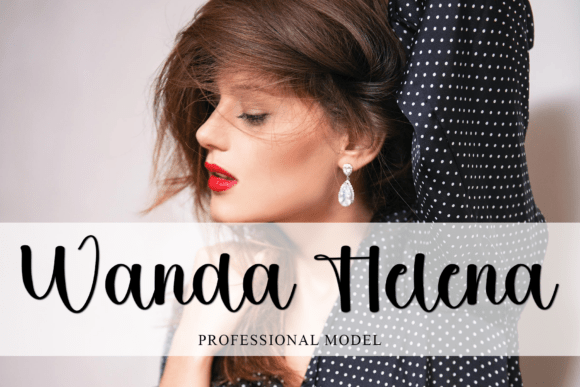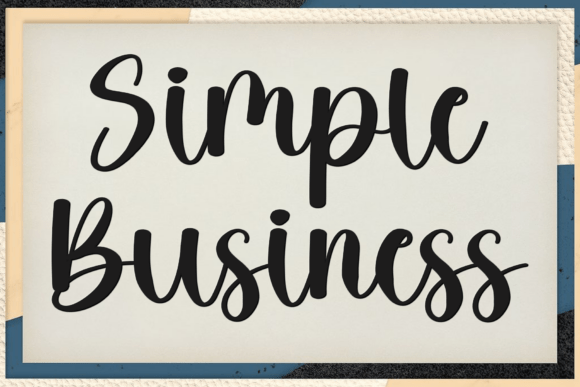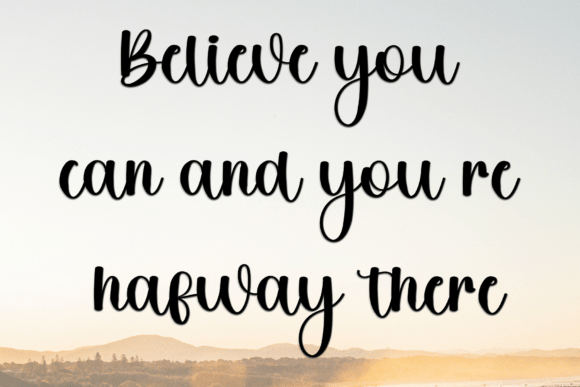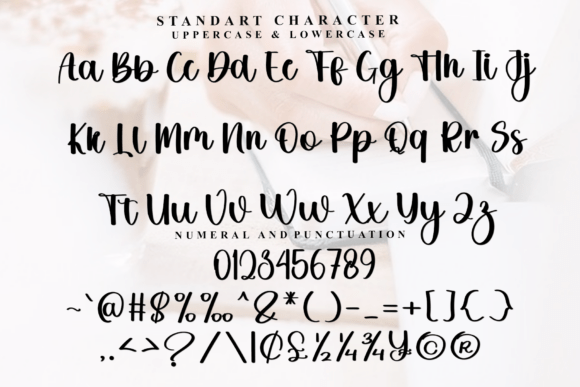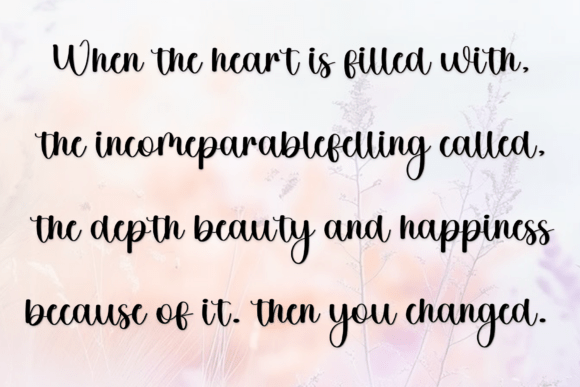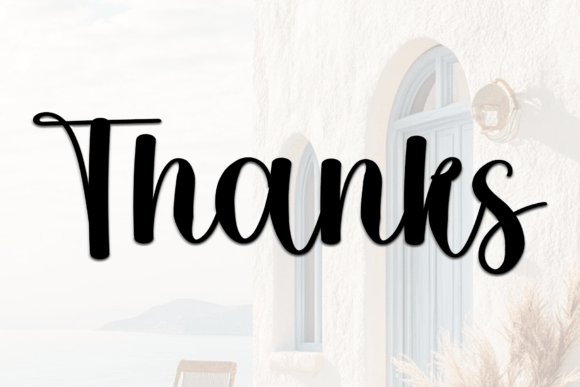
Discover the Unique Charm of Darkline Font: Elevate Your Designs with Its Soft and Eye-Catching Style
In the world of typography, fonts play a crucial role in conveying messages, expressing creativity, and capturing the audience’s attention. Among the numerous fonts available, Darkline Font stands out with its distinctive soft and unique touch. This beautiful font is designed to add a special character to your designs, making it perfect for various creative projects. In this article, we’ll explore the features, benefits, and uses of Darkline Font, and why it’s becoming a favorite among designers and crafters.
The Distinctive Features of Darkline Font
Darkline Font boasts a range of distinctive features that set it apart from other fonts. Its soft and unique strokes give it a special character, making it both meaningful and versatile for future use. The font’s design is carefully crafted to ensure that each character is not only aesthetically pleasing but also highly legible. This combination of style and functionality makes Darkline Font an excellent choice for a wide range of design projects.
A Wide Range of Characters at Your Disposal
One of the significant advantages of Darkline Font is its extensive character set. The font includes various characters, ensuring that you have ample options for expressing your creativity. Whether you’re working on a design project, crafting a unique piece of art, or creating engaging content, Darkline Font provides you with the flexibility to experiment and bring your ideas to life.
Perfect for Design Projects, Crafts, and Creative Works
Darkline Font’s versatility makes it an ideal choice for various design projects, crafts, and creative works. Its unique style can add a touch of elegance and sophistication to your designs, making them appealing to a wide range of audiences. Whether you’re a professional designer, a crafter, or an artist, Darkline Font can help you elevate your work and stand out in your respective field.
Ideal for a Wide Range of Products
Darkline Font’s natural style makes it suitable for a wide range of products, from digital media to print materials. Whether you’re creating a logo, brochure, poster, or social media graphics, Darkline Font can enhance your designs and make them more engaging. Its versatility also makes it an excellent choice for crafting, scrapbooking, and other paper crafts.
So, what makes Darkline Font an attractive option for designers and crafters? Here are a few benefits:
- Unique Style: Darkline Font’s distinctive style sets it apart from other fonts, allowing you to create unique and eye-catching designs.
- Versatility: The font’s versatility makes it suitable for various design projects, crafts, and creative works.
- Legibility: Darkline Font’s careful design ensures that each character is highly legible, making it perfect for both digital and print materials.
In conclusion, Darkline Font is a beautiful and eye-catching font that can elevate your designs with its soft and unique touch. Its distinctive strokes, extensive character set, and versatility make it perfect for various design projects, crafts, and creative works. With its compatibility with various applications and operating systems, Darkline Font is an excellent choice for designers and crafters looking to add a special character to their work. So, why not give Darkline Font a try and discover the unique charm it can bring to your designs?
Whether you’re a professional designer or a crafter, Darkline Font is sure to inspire your creativity and help you produce stunning designs that capture the attention of your audience. So, explore the world of Darkline Font today and unlock a world of possibilities for your creative projects!